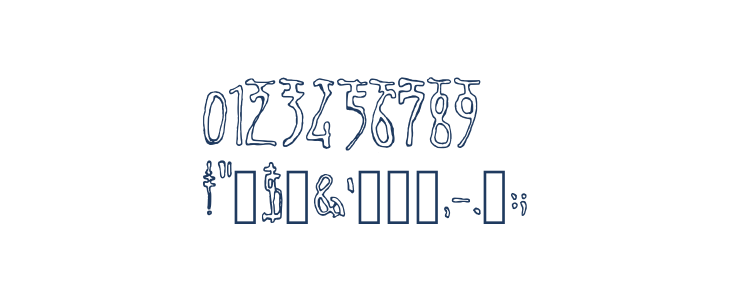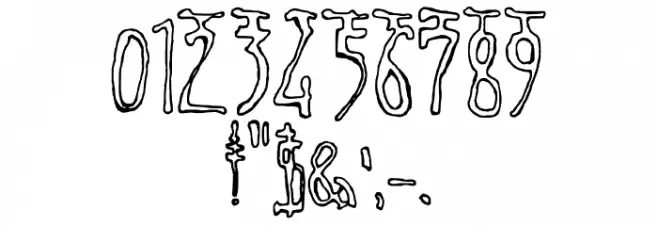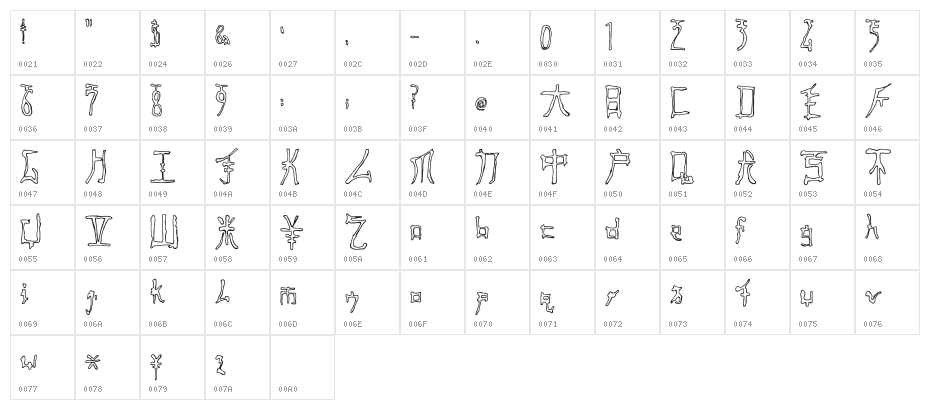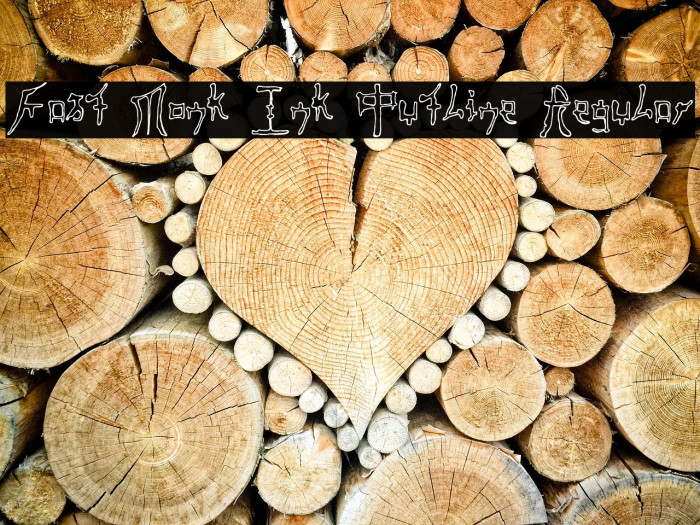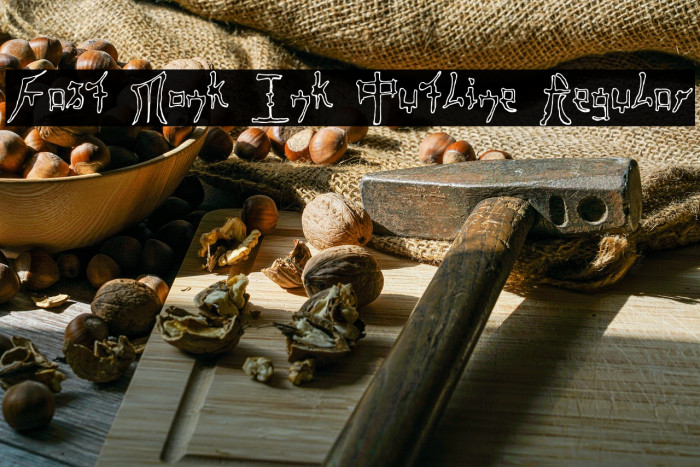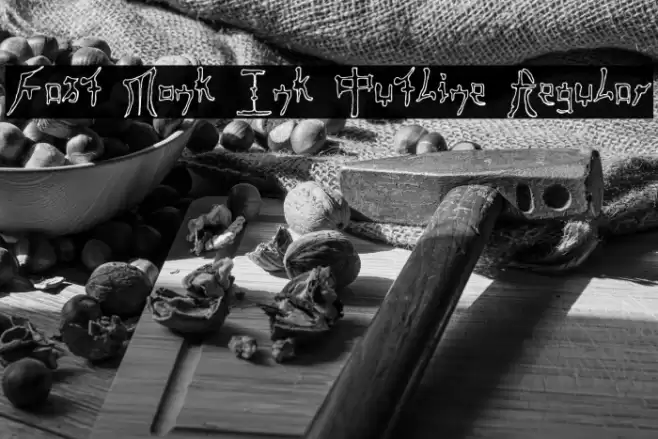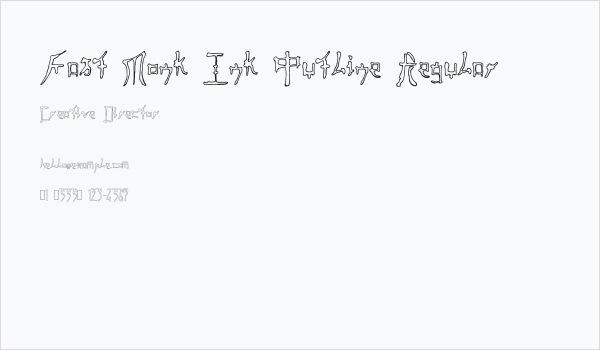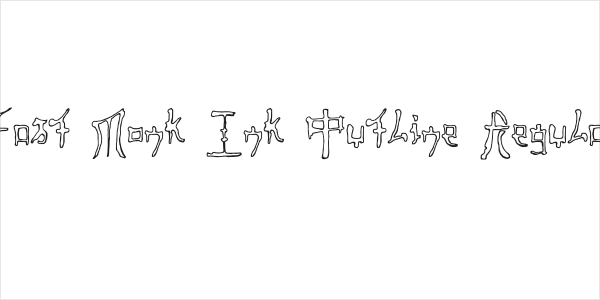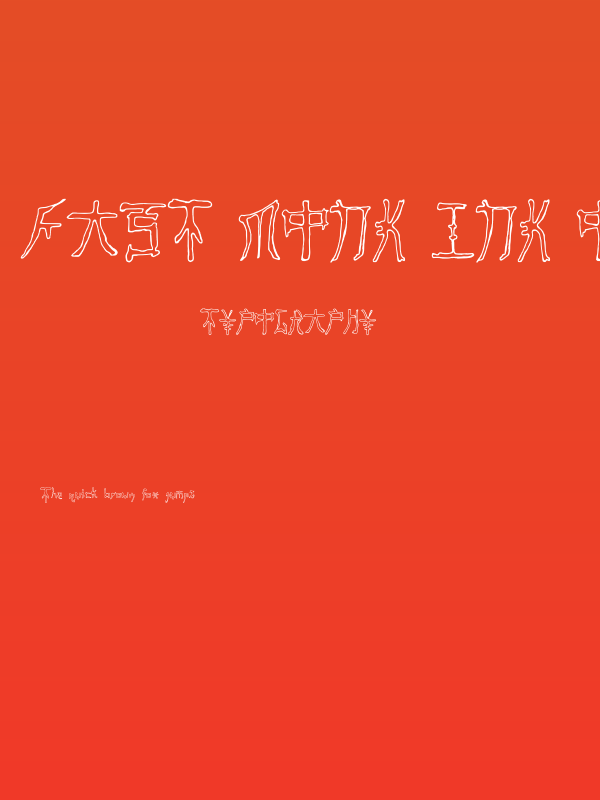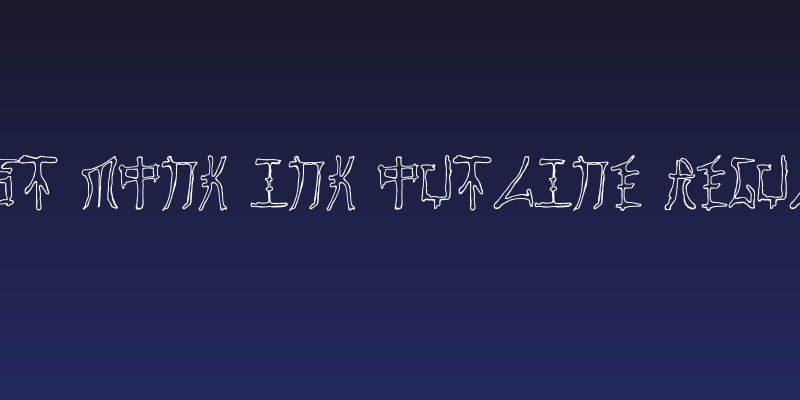
Fast Monk Ink Outline Regular Font
Fast Monk Ink Outline Regular Description
This font features an outline style with a hand-drawn, ink-like appearance. The characters are irregular and organic, giving a sense of spontaneity and artistic flair. The uppercase and lowercase letters maintain a consistent style, with each character exhibiting unique curves and angles. The numerals and special characters follow the same design ethos, contributing to a cohesive overall look. The font's outline nature adds a layer of depth and texture, making it stand out in any design. Its playful yet edgy style is perfect for projects that require a touch of creativity and individuality.
| Overall Style | Artistic, Playful |
| Use Case | Logos, Posters, Creative Branding |
| Proposed Projects | Ideal for artistic projects, creative branding, posters, and unique invitations. |